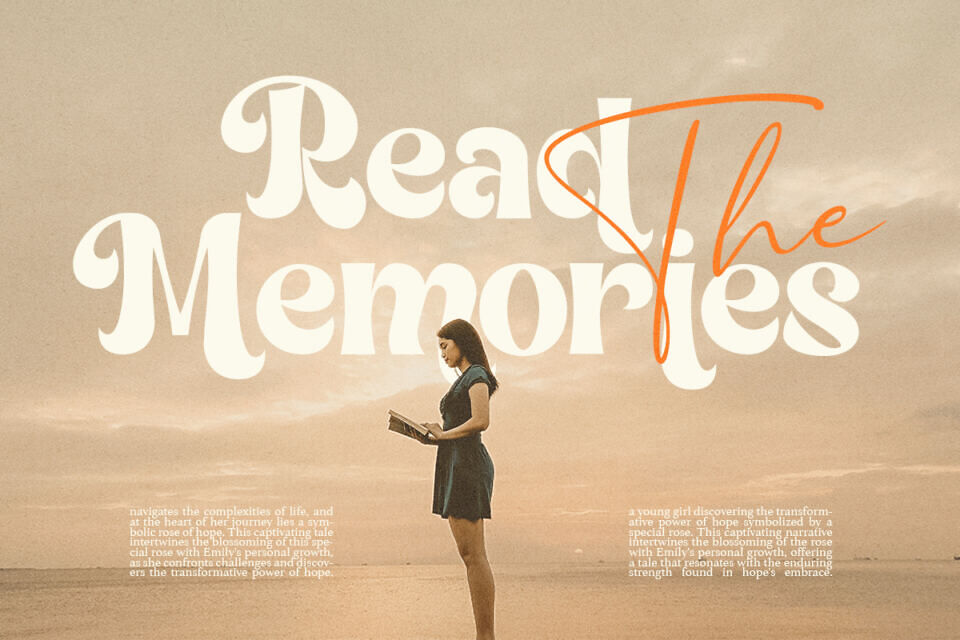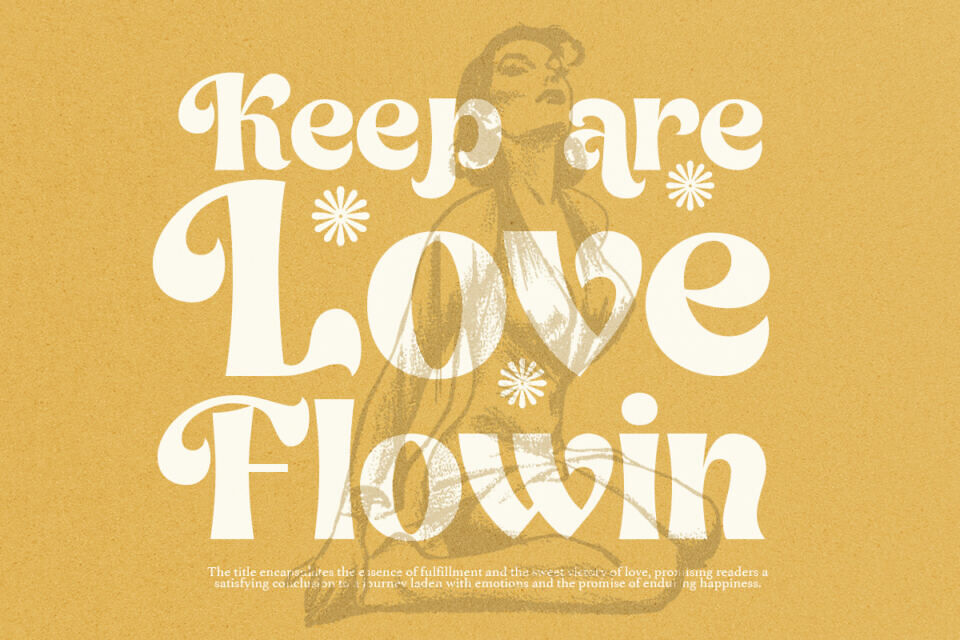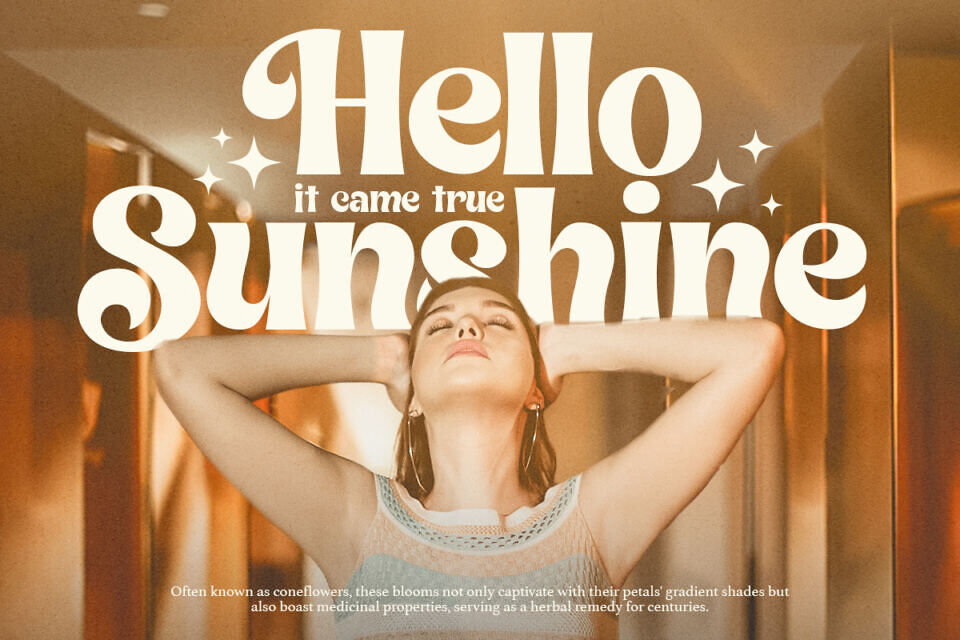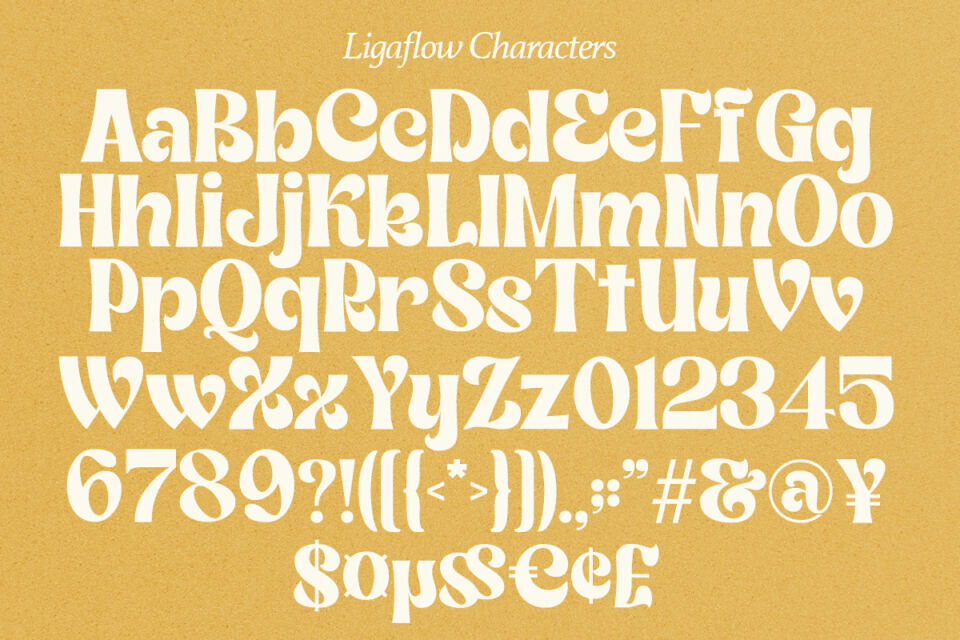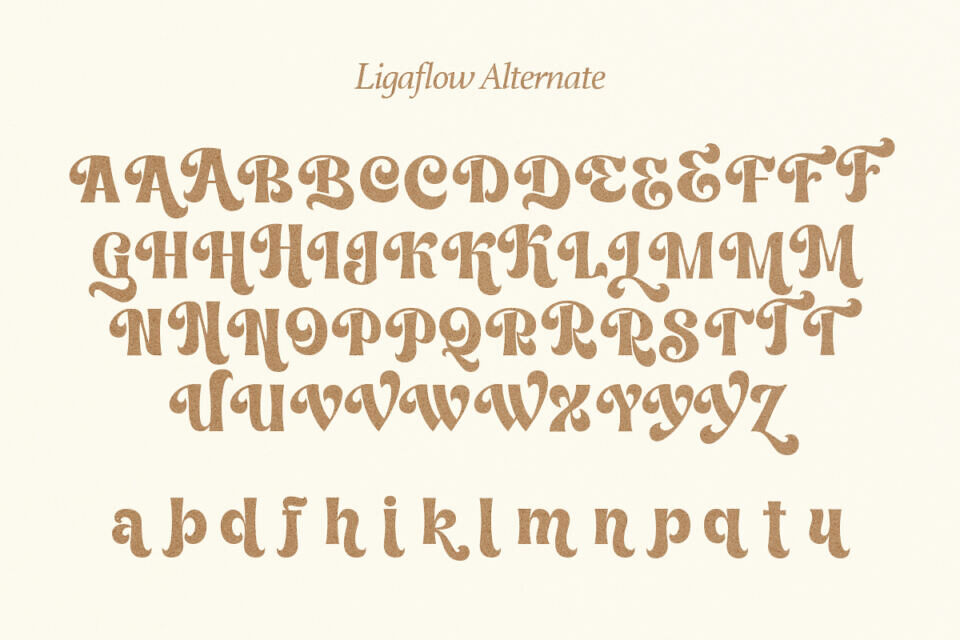
Ligaflow Font
Ligaflow is a symbol of elegance in typography, seamlessly blending classic sophistication with captivating uniqueness. This serif display font embodies a modern retro style, featuring meticulously crafted letters with distinctive swashes and tails, adding an artistic touch and enchanting beauty to any text.
Versatile and perfect for various purposes, from striking logos to elegant wedding invitations, Ligaflow offers endless creative possibilities, making it the ideal choice for those seeking aesthetic beauty in typography design.